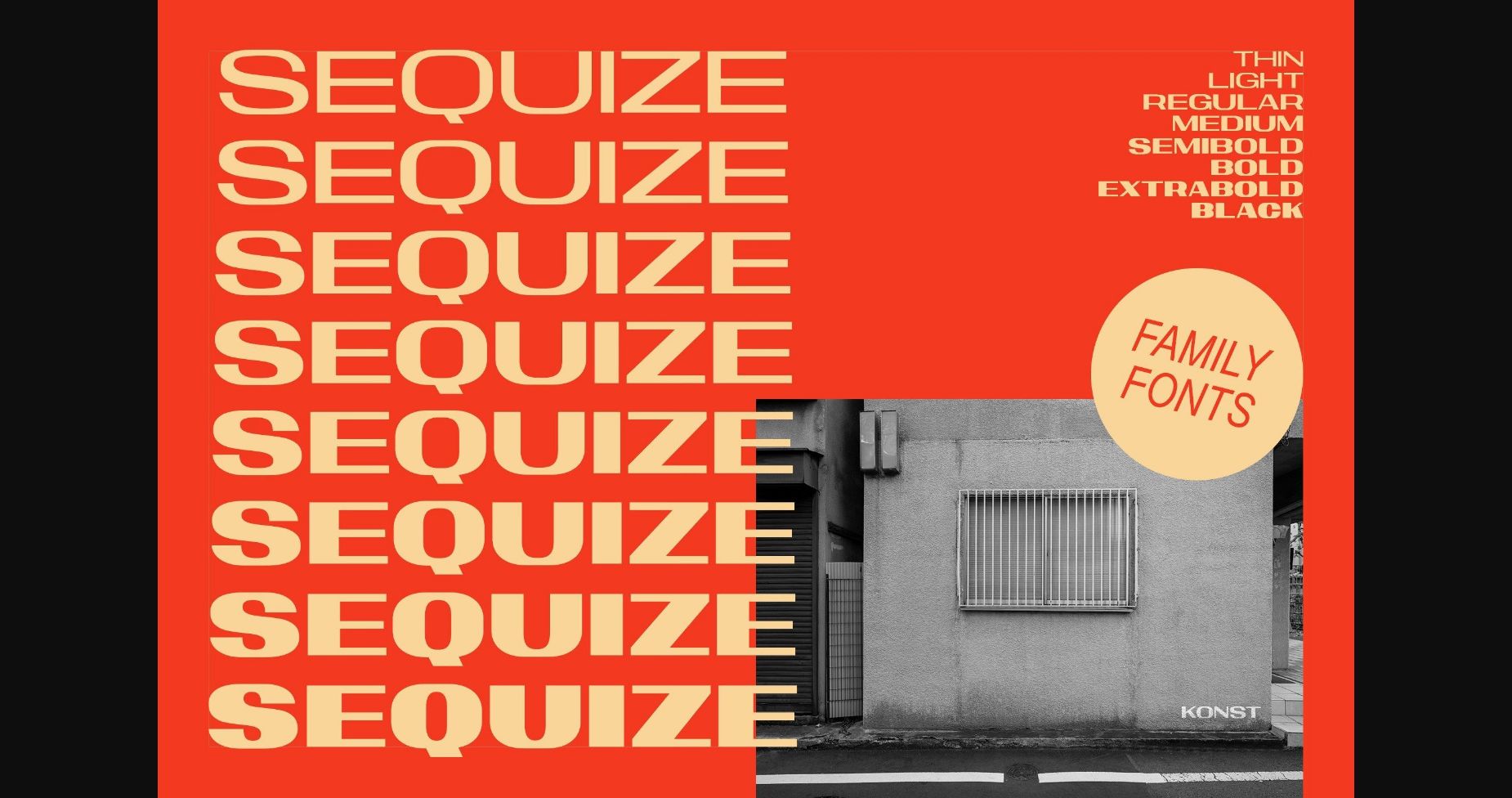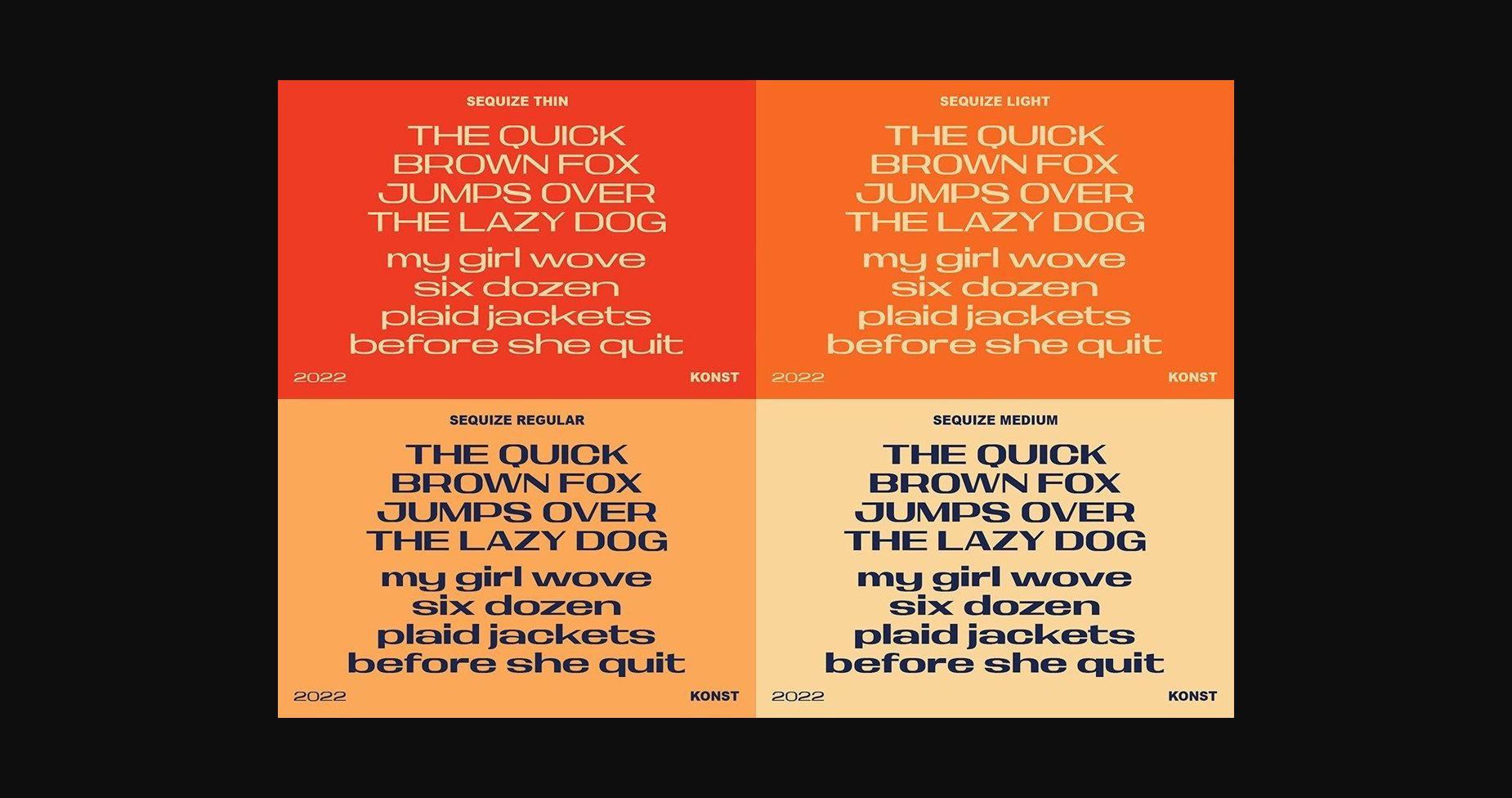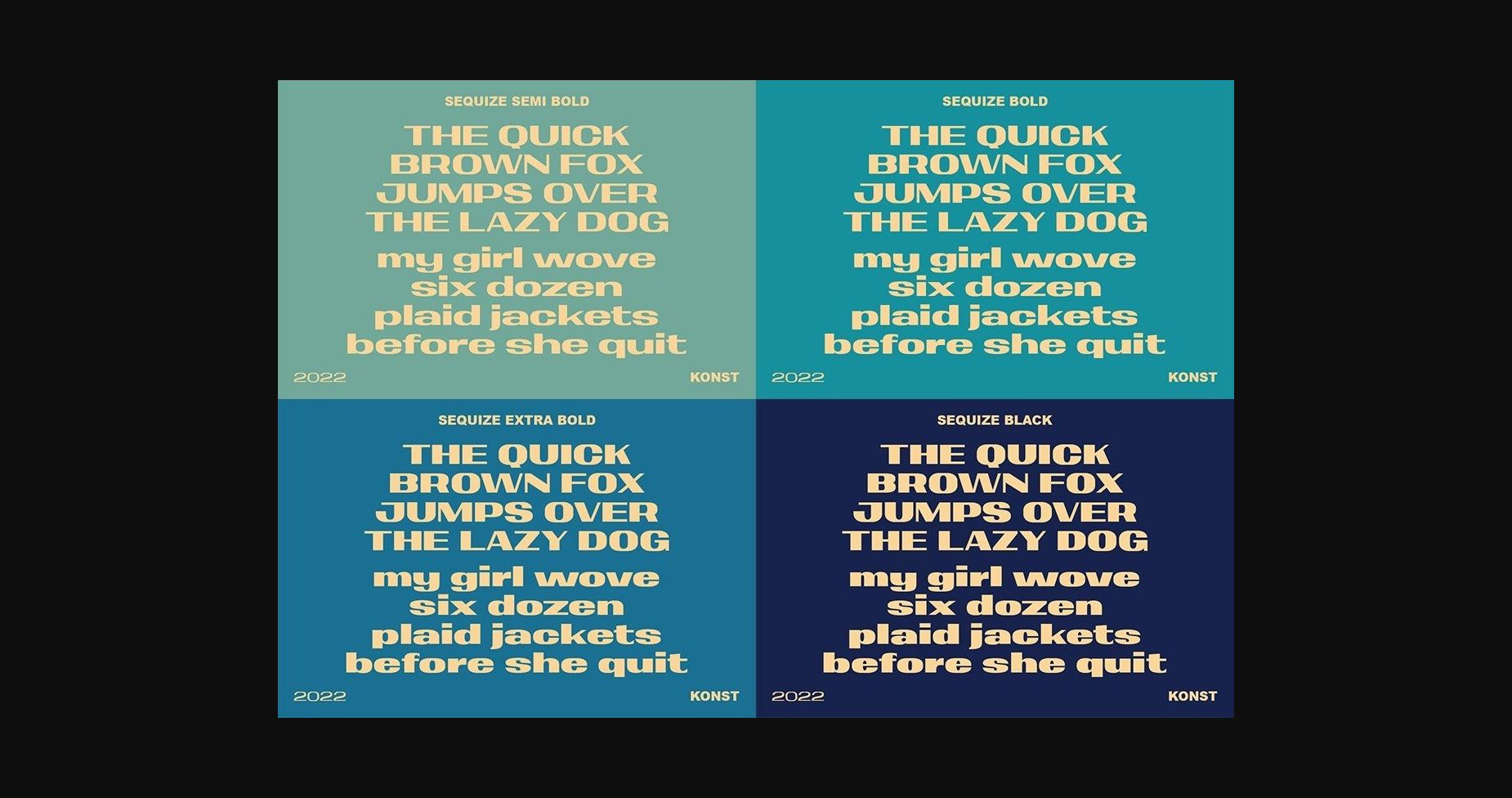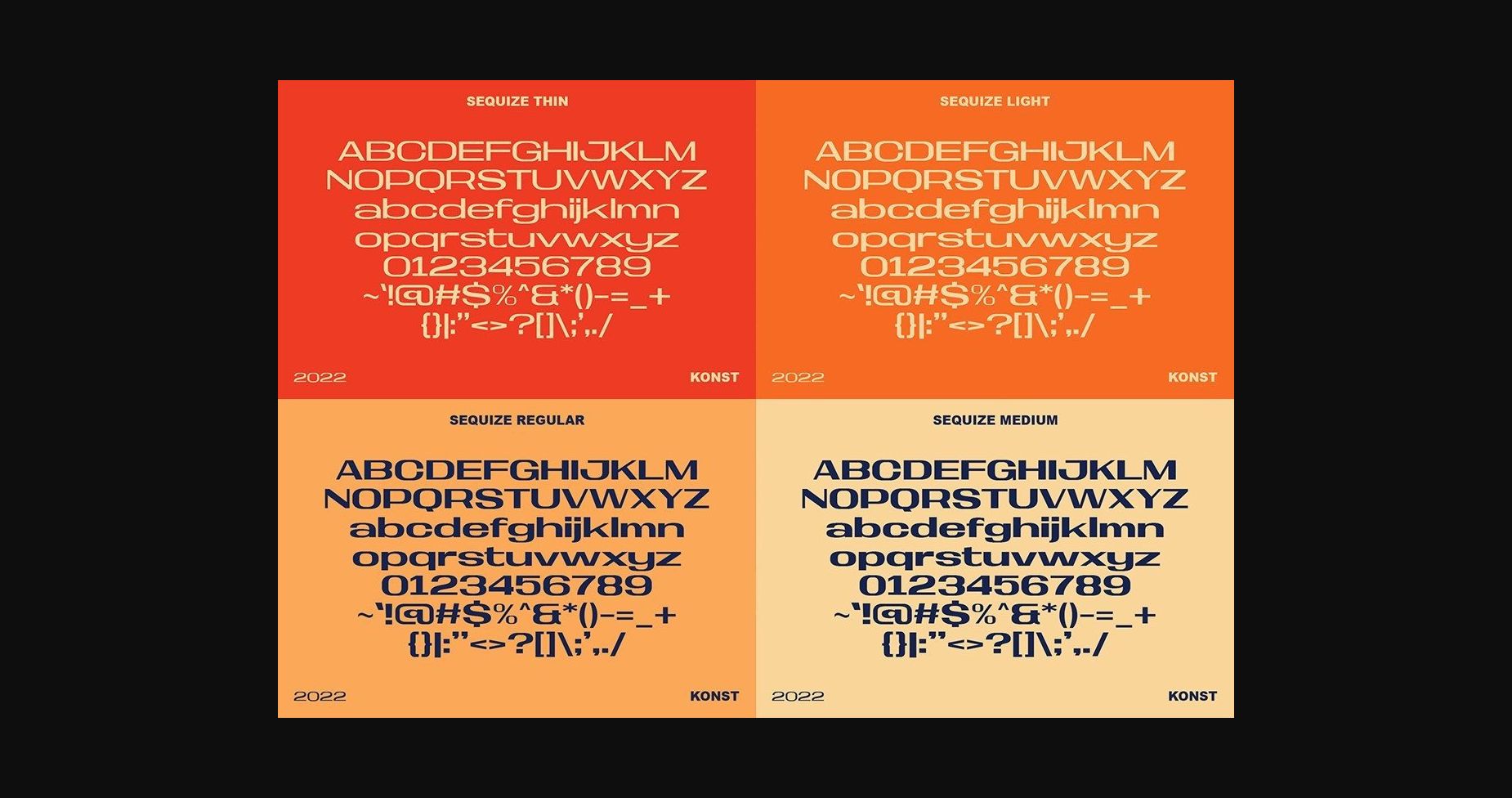
About Sequize Font
Sequize is a modern and cool sans serif font. No matter the topic, this font will be an incredible asset to your fonts’ library, as it has the potential to elevate any creation.